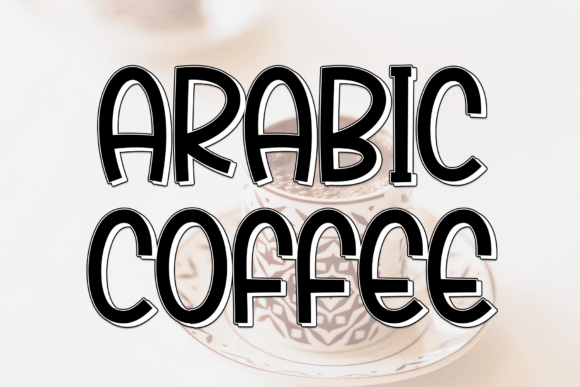
Arabic Coffee Font: Elevate Your Designs with a Relaxed yet Luxurious Touch
Are you on the hunt for a font that exudes a sense of casual elegance and sophistication? Look no further than the Arabic Coffee font. This beautiful, handwritten font is reminiscent of marker-drawn letters, giving it a relaxed and sporty feel that’s perfect for a wide range of design applications.
What is Arabic Coffee Font?
Arabic Coffee is a unique, handwritten font that is designed to give your designs a luxurious and elegant look without appearing too formal. Its casual, marker-drawn aesthetic makes it an excellent choice for designers and crafters looking to add a personal touch to their work.
Characteristics of Arabic Coffee Font
• Handwritten style: Arabic Coffee has a beautiful, handwritten style that gives it a personal and unique feel.
• Marker-drawn aesthetic: The font’s marker-drawn aesthetic gives it a relaxed and sporty feel that’s perfect for casual designs.
• Luxurious and elegant: Despite its casual nature, Arabic Coffee still manages to convey a sense of luxury and elegance, making it perfect for high-end designs.
Use Cases for Arabic Coffee Font
Arabic Coffee is an incredibly versatile font that can be used in a wide range of design applications, including:
• Branding: Use Arabic Coffee to create a unique and memorable brand identity that stands out from the crowd.
• Logos: The font’s luxurious and elegant feel makes it perfect for logos that need to convey a sense of sophistication.
• Wedding supplies: Add a touch of elegance and whimsy to your wedding designs with Arabic Coffee.
• Greeting cards: The font’s casual, handwritten style makes it perfect for greeting cards and other personal correspondence.
• Fashion: Use Arabic Coffee to create stylish and sophisticated fashion designs that exude luxury and elegance.
• Lookbooks: The font’s relaxed and sporty feel makes it perfect for lookbooks and other marketing materials.
• Marketing promotions: Use Arabic Coffee to create eye-catching and effective marketing promotions that stand out from the crowd.
Why Choose Arabic Coffee Font?
So why should you choose Arabic Coffee for your next design project? Here are just a few reasons:
• Unique style: Arabic Coffee has a unique and distinctive style that will set your designs apart from the crowd.
• Versatility: The font’s versatility makes it perfect for a wide range of design applications.
• Ease of use: Arabic Coffee is incredibly easy to use, even for designers who are new to working with handwritten fonts.
Tips for Using Arabic Coffee Font
Here are a few tips for getting the most out of Arabic Coffee:
• Pair with contrasting fonts: Pair Arabic Coffee with contrasting fonts to create visual interest and add depth to your designs.
• Experiment with colors: The font’s luxurious and elegant feel makes it perfect for use with a wide range of colors and textures.
• Use for headlines and titles: Arabic Coffee is perfect for use in headlines and titles, where its unique style can really shine.
In conclusion, Arabic Coffee is a beautiful and versatile font that is perfect for designers and crafters looking to add a touch of luxury and elegance to their work. Its unique, handwritten style and relaxed, sporty feel make it perfect for a wide range of design applications, from branding and logos to wedding supplies and greeting cards. So why not give Arabic Coffee a try and see the difference it can make in your designs?